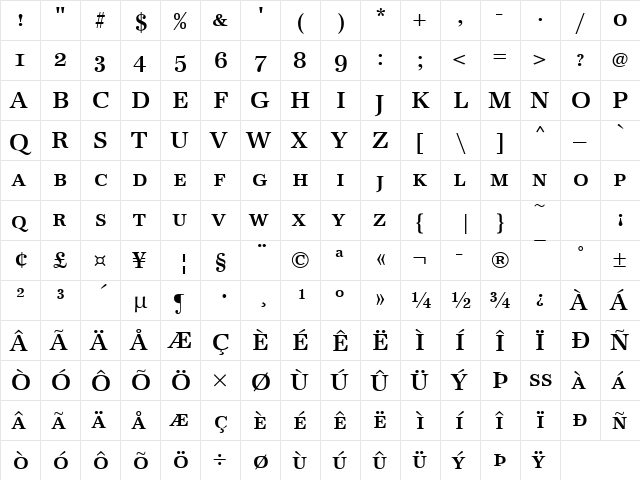
URWAntiquaSCTMed Regular
Design Context for URWAntiquaSCTMed Typeface
URWAntiquaSCTMed offers clean, dependable letterforms without strong stylistic allegiance, making it a practical choice for designers who need flexibility.
Pro Tip: Use URWAntiquaSCTMed in both headline and body roles to test its range before committing to a single application.